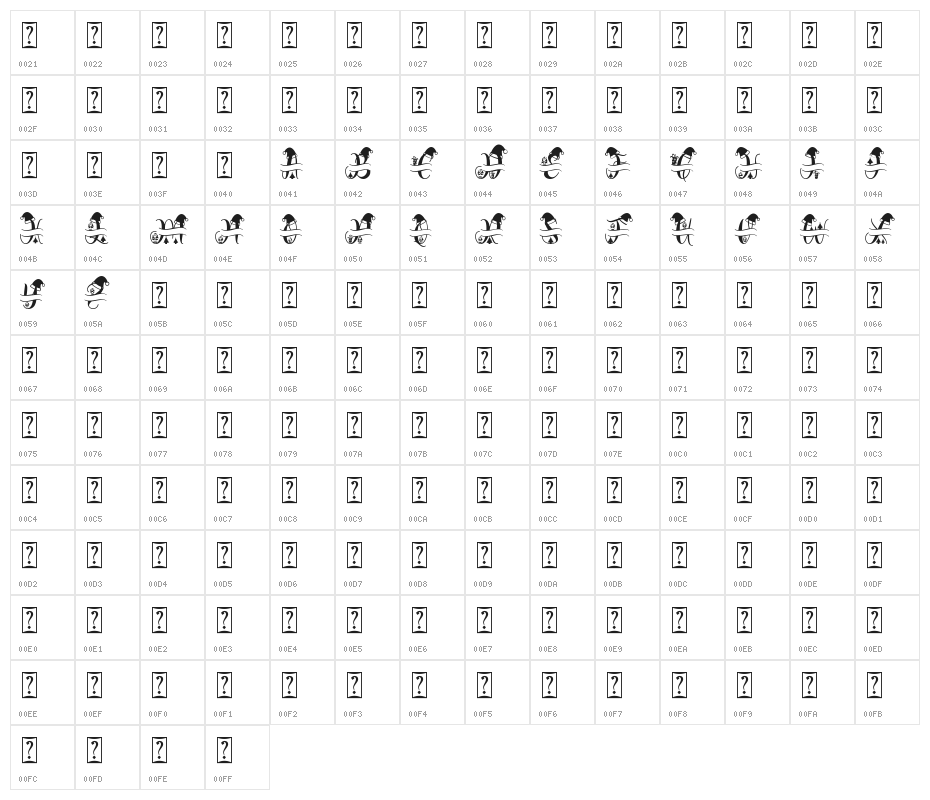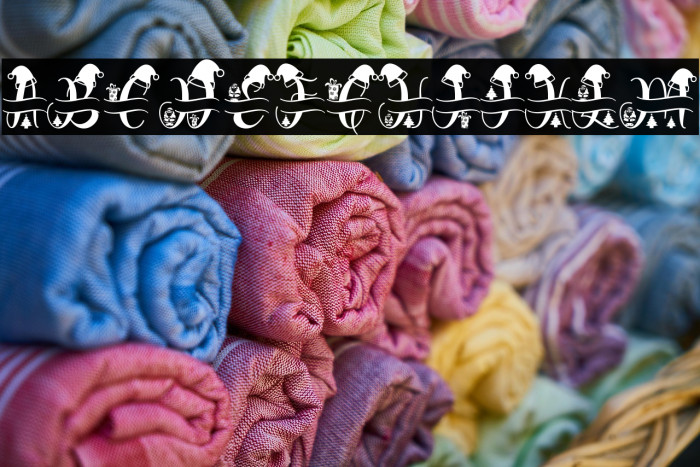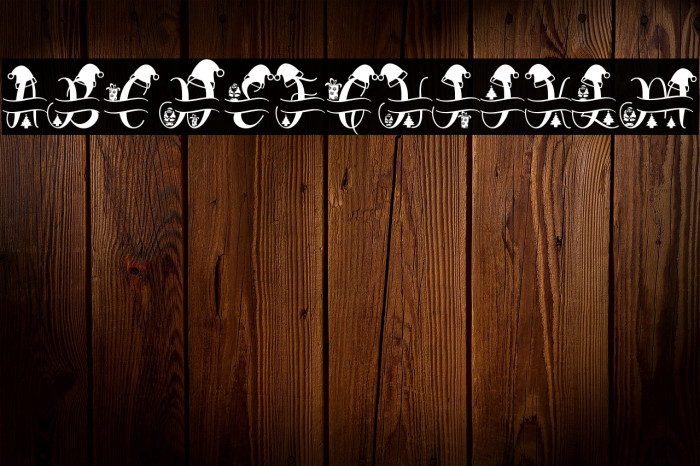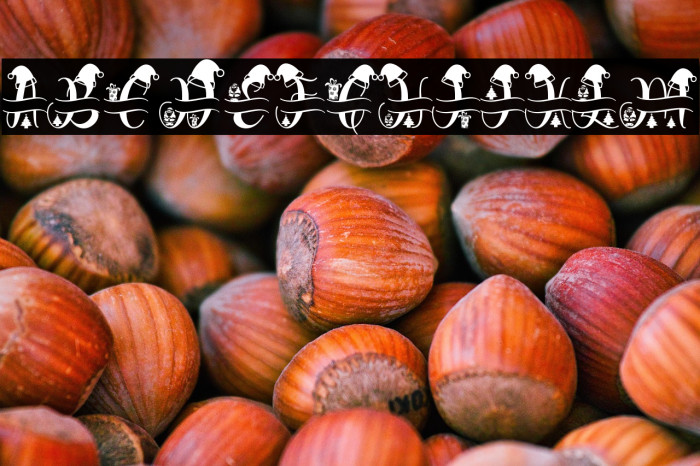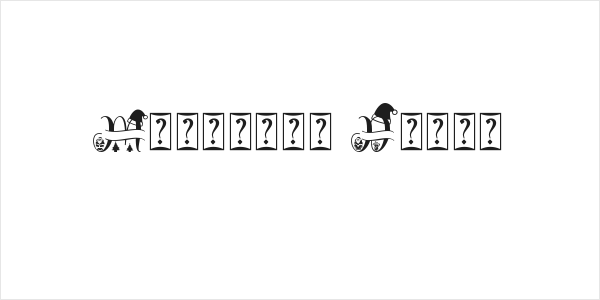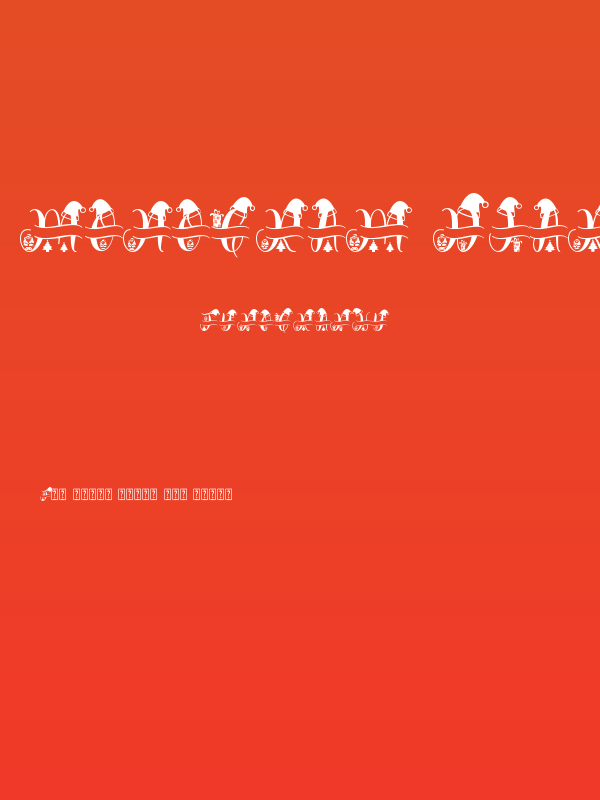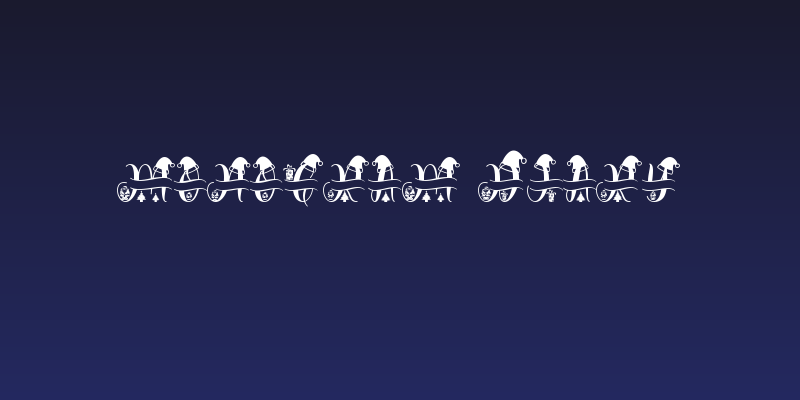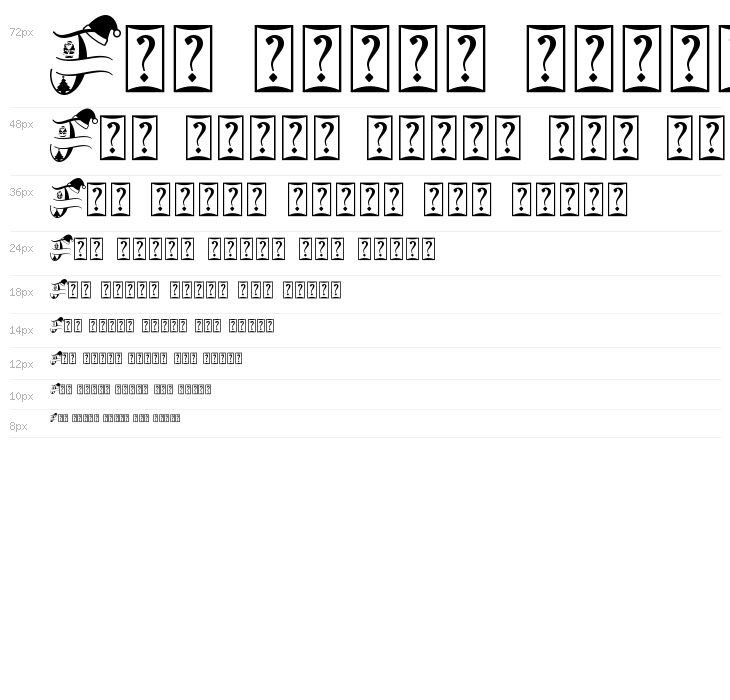
Monogram Diary Font
Monogram Diary Description
This design features a whimsical and decorative style, incorporating playful elements such as elves and holiday motifs. The characters are adorned with intricate details, including hats and festive decorations, creating a lively and engaging visual experience. The font is highly decorative, with each character uniquely embellished, making it suitable for seasonal or themed projects. The overall appearance is festive and imaginative, capturing a sense of joy and celebration.
| Use Case | Logos, Headlines, Decorative text |
| Proposed Projects | Ideal for holiday cards, festive invitations, themed posters, and decorative projects. |